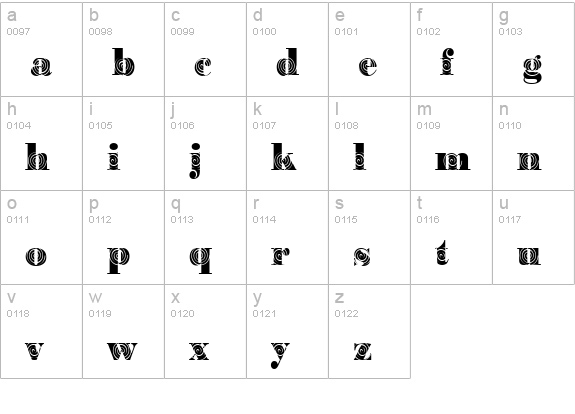
BodoniWinding2-Regular Font Details
BodoniWinding2-Regular is the standard, neutral variant in the BodoniWinding2 typeface family \xE2\x80\x94 well suited to general body text, paragraphs, and standard typographic work.
BodoniWinding2-Regular font is a unique and elegant typeface that combines the classic Bodoni style with a modern twist of winding curves. Its intricate design and graceful flourishes make it perfect for adding a touch of sophistication to any project. This font is freely available to download at FontsMarket.com, where you can easily access this exquisite typeface for your personal and commercial projects. BodoniWinding2-Regular font is versatile and can be used for various design applications, from branding and packaging to editorial and web design. With its sleek lines and intricate details, BodoniWinding2-Regular font is sure to make a statement and elevate the visual appeal of any design. Download this stunning font today and add a touch of elegance to your creative projects.